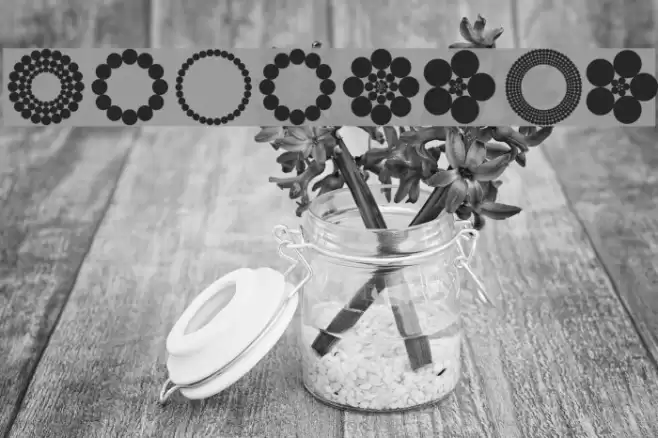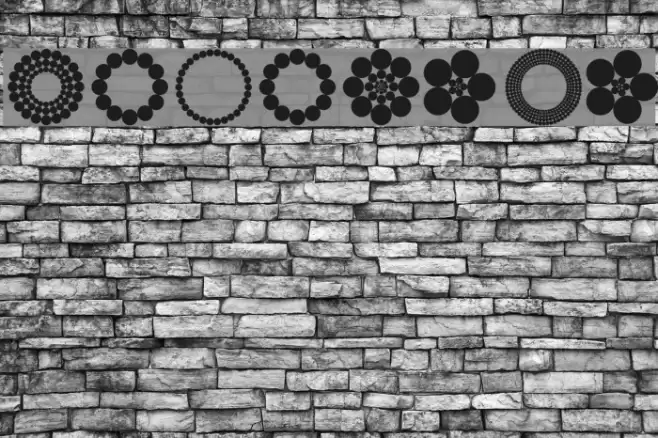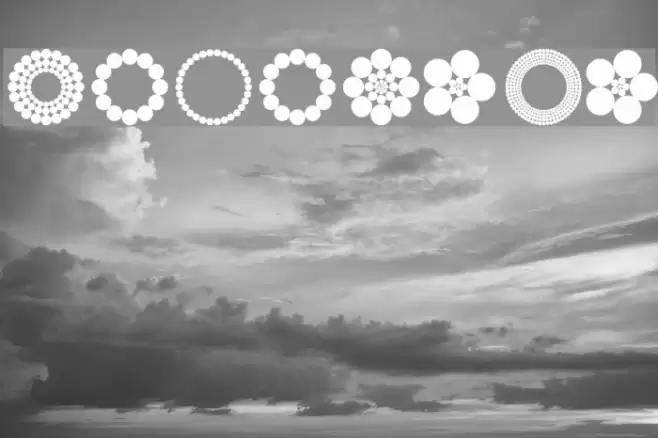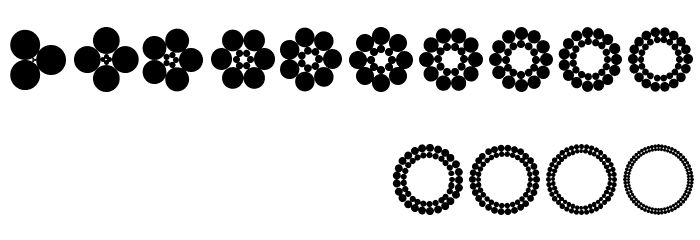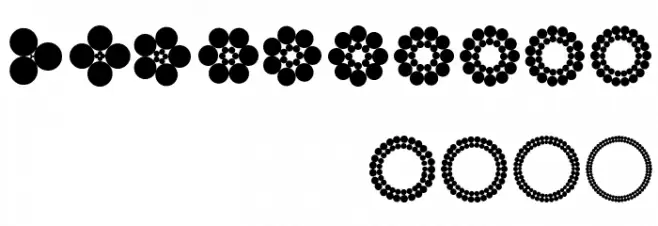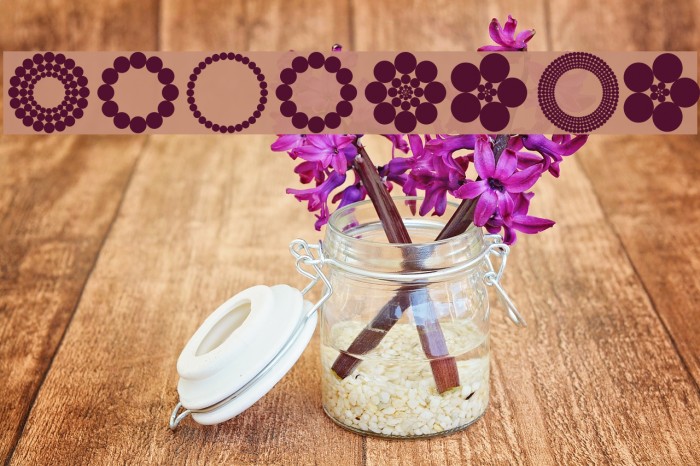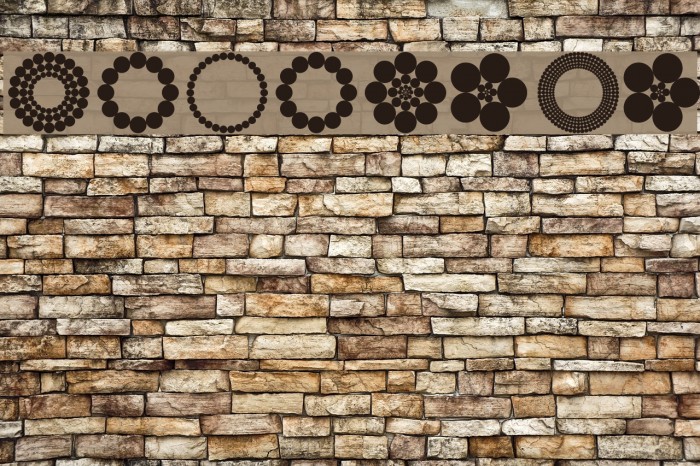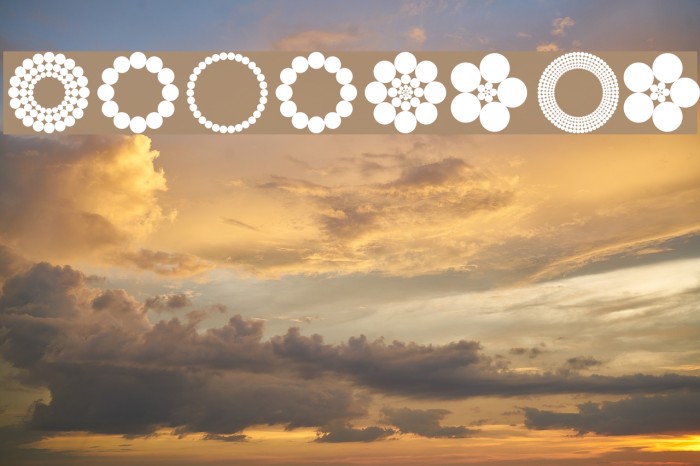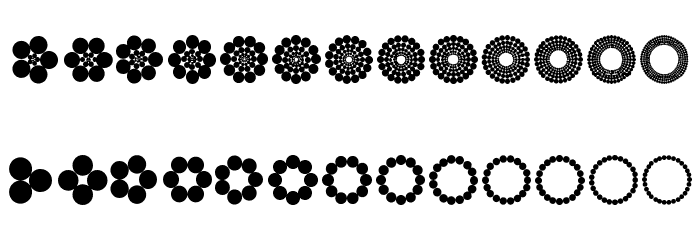
Juzudama Font
Juzudama Description
A decorative display font composed entirely of geometric floral and circular dot patterns, with each character represented by a unique arrangement of filled circles forming stylized flowers or rings. The glyphs are bold, highly stylized, and lack traditional letterforms, focusing on ornamental shapes.
Geometric, floral-inspired decorative display font made of dot patterns from Uncategorized fonts.
- Proposed Projects: Posters, invitations, branding for creative or floral-themed businesses, decorative headings, art projects.
- Overall Style: Decorative, Geometric, Playful
- Use Case: Logos, Headlines, Decorative elements